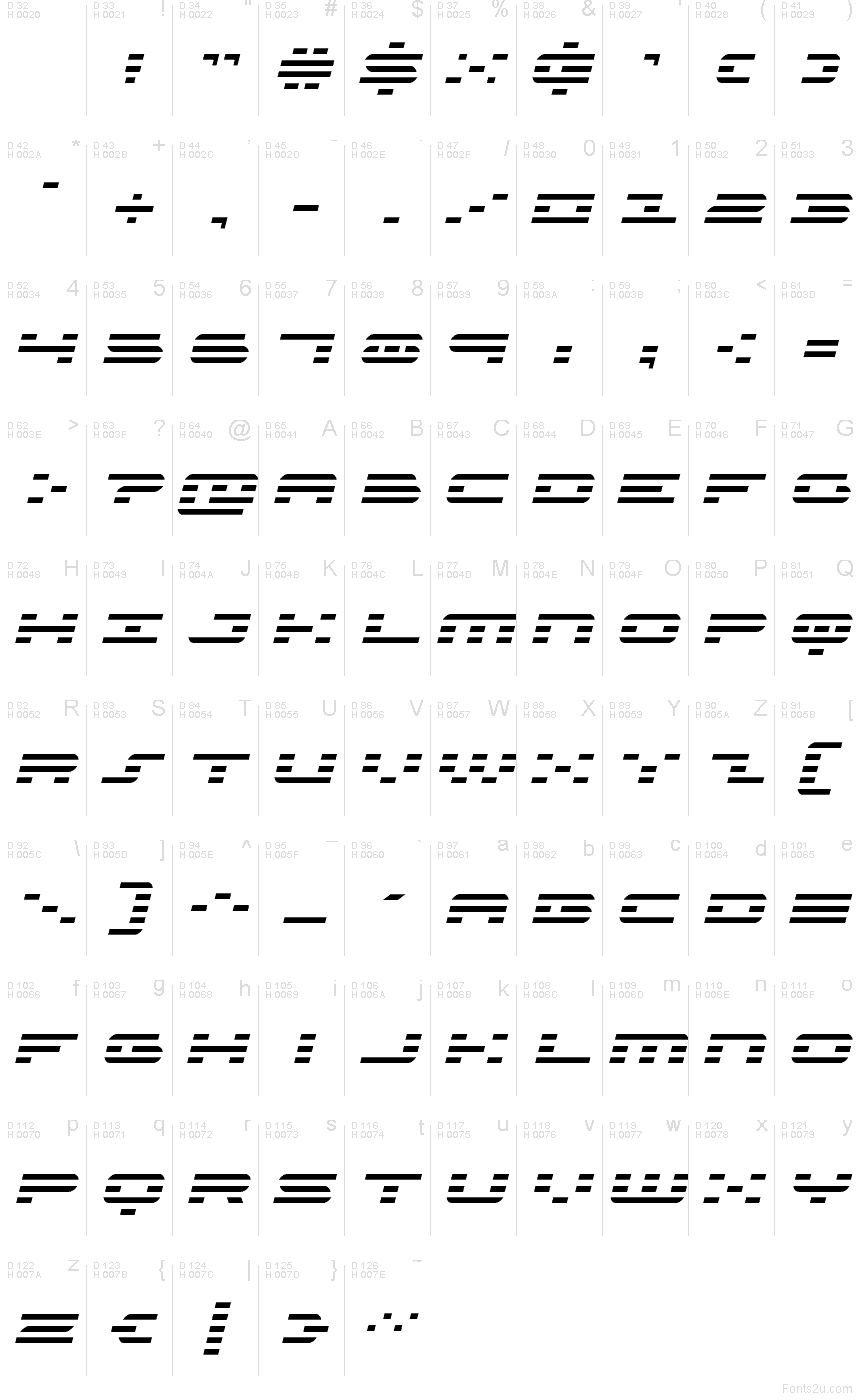
Nova Terra Title Italic
Nova Terra Title Italic font by Iconian Fonts is a free futuristic display typeface that looks like it’s been carved from streaks of light at full throttle. Its sharp, forward-leaning forms and sliced horizontal bars create a sense of motion even on a still screen, like speed lines frozen mid-race. The heavy, blocky shapes stay legible while feeling edgy and mechanical, giving your titles a bold, high-tech punch.
Using Nova Terra Title Italic, you can brand racing games, sci‑fi movie posters, esports teams, YouTube channel art, tech event graphics, or futuristic product launches with instant momentum. This free font thrives at large sizes where its segmented structure reads clearly; pair it with a clean geometric sans in regular weight for taglines or UI text to keep the focus on its blistering, forward-driving energy.